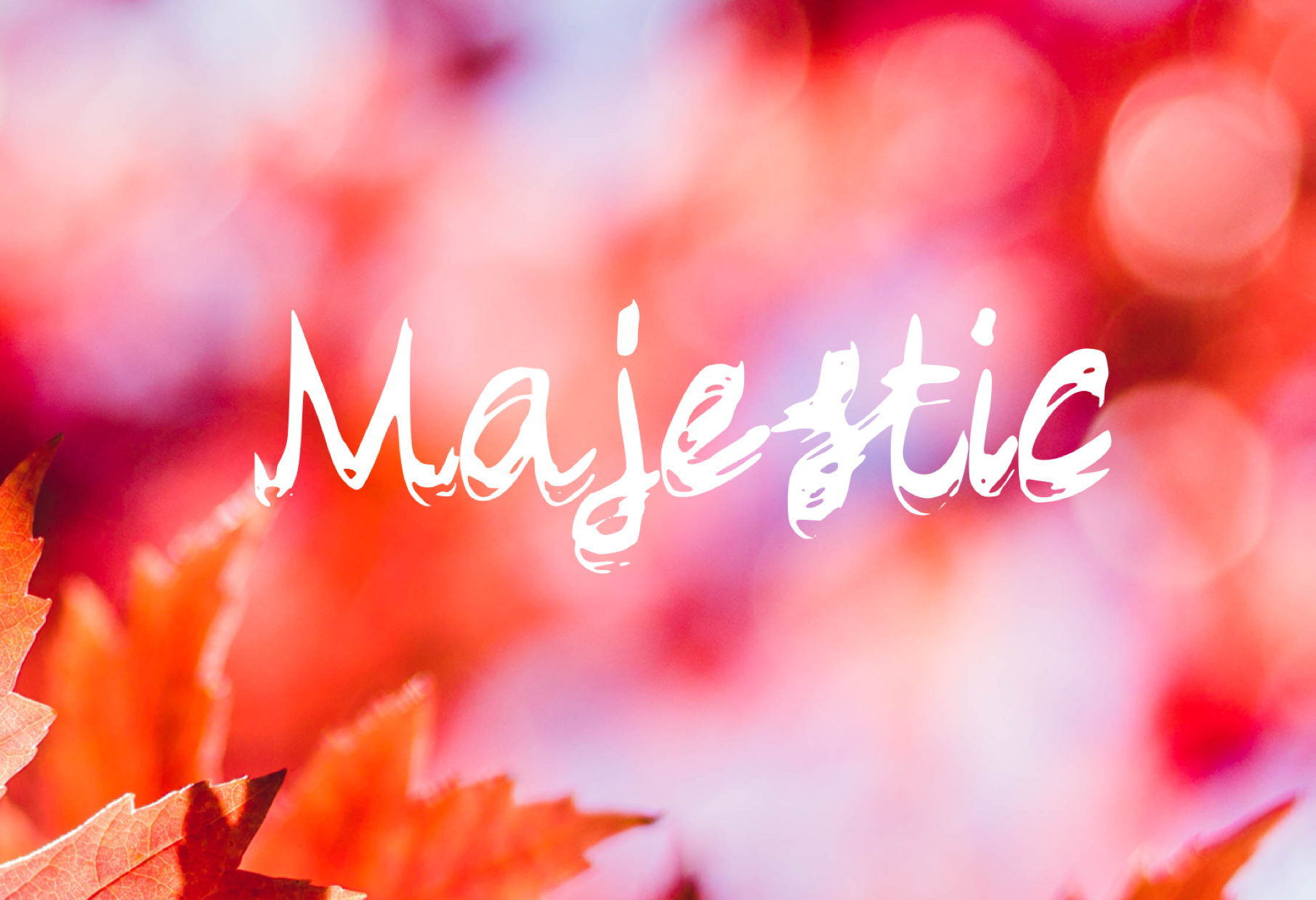
Majestic - Handwritten Script Font
A handwritten script font containing upper and lowercase characters, numerals and a large range of punctuation. International characters and ligatures included!
Ideal for logos, handwritten quotes, product packaging, header, poster, merchandise, social media, greeting cards and many more.
Features : Latin A-Z
Latin a-z
Large range of Punctuation